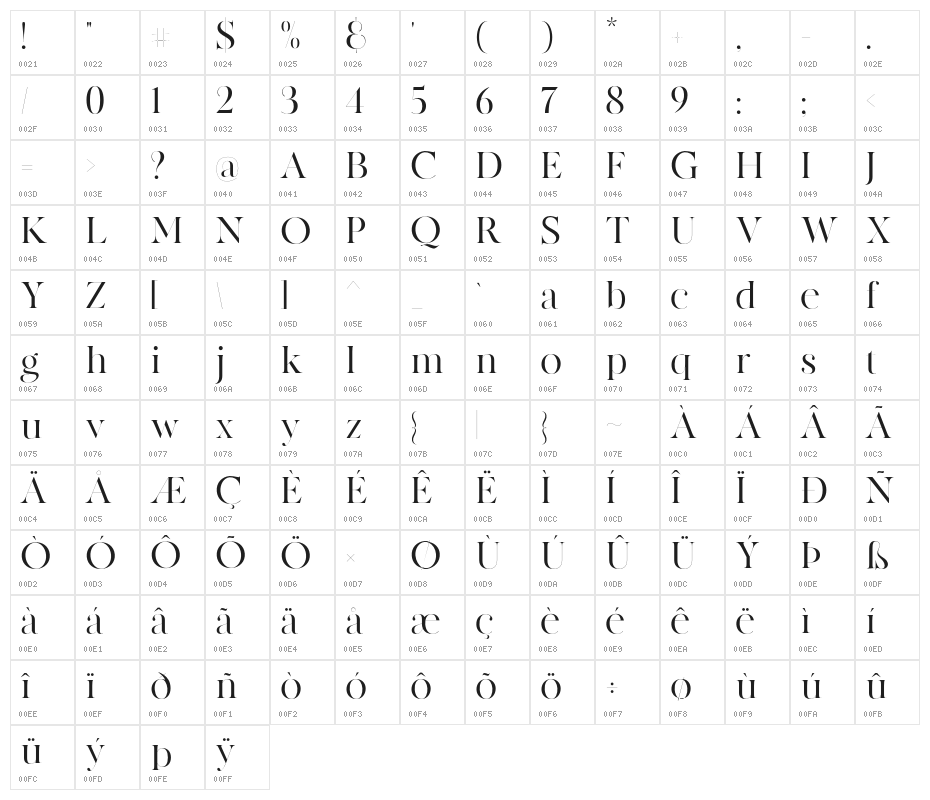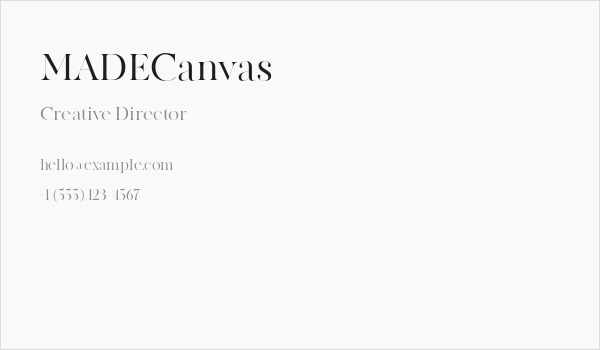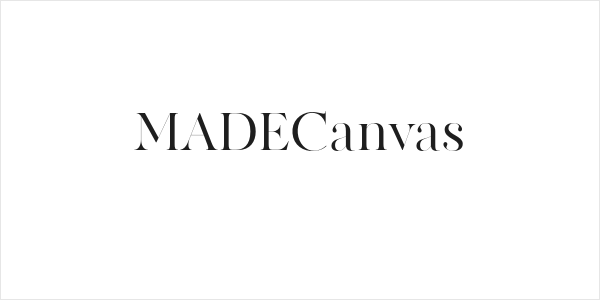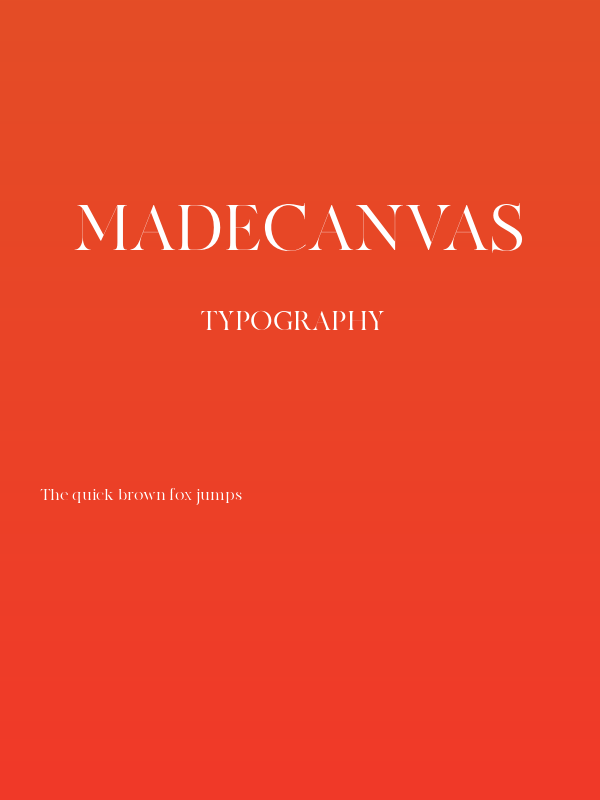
MADECanvas Font
MADECanvas Description
This font is a sophisticated serif typeface characterized by its elegant and refined design. The letters exhibit a high contrast between thick and thin strokes, giving it a classic and timeless appeal. The serifs are sharp and pronounced, adding a touch of formality and tradition. The uppercase letters are stately and commanding, while the lowercase letters maintain a graceful flow. The numerals are well-proportioned, complementing the overall aesthetic. Special characters are designed with the same attention to detail, ensuring consistency across all glyphs. This typeface is ideal for projects that require a touch of elegance and sophistication.
Overall StyleClassic
Proposed ProjectsIdeal for luxury branding, editorial design, wedding invitations, and high-end product packaging.